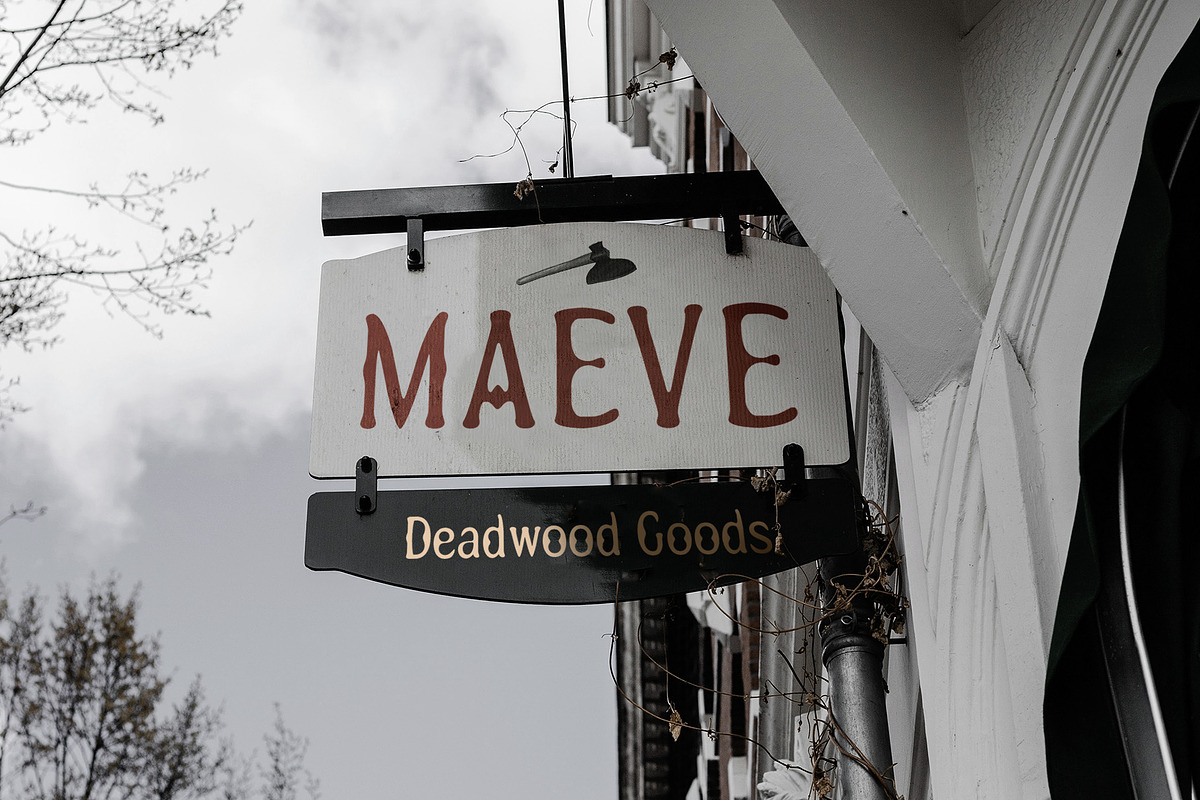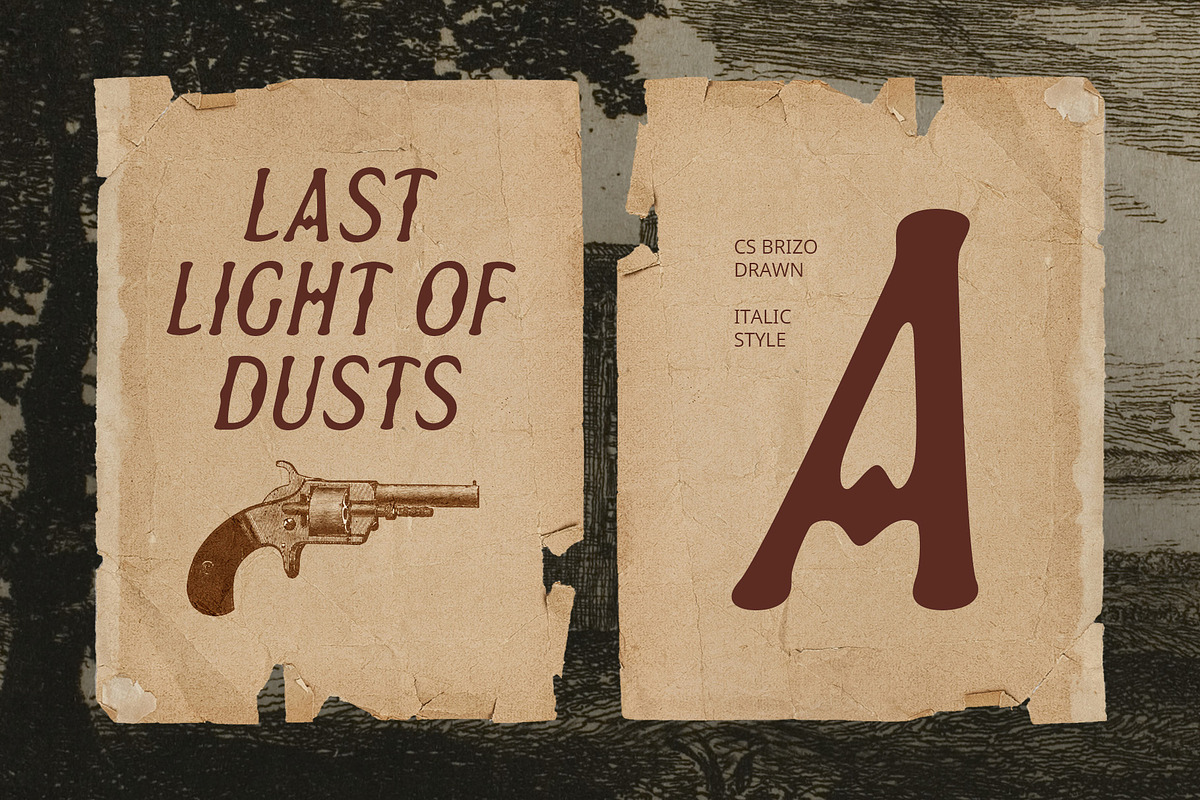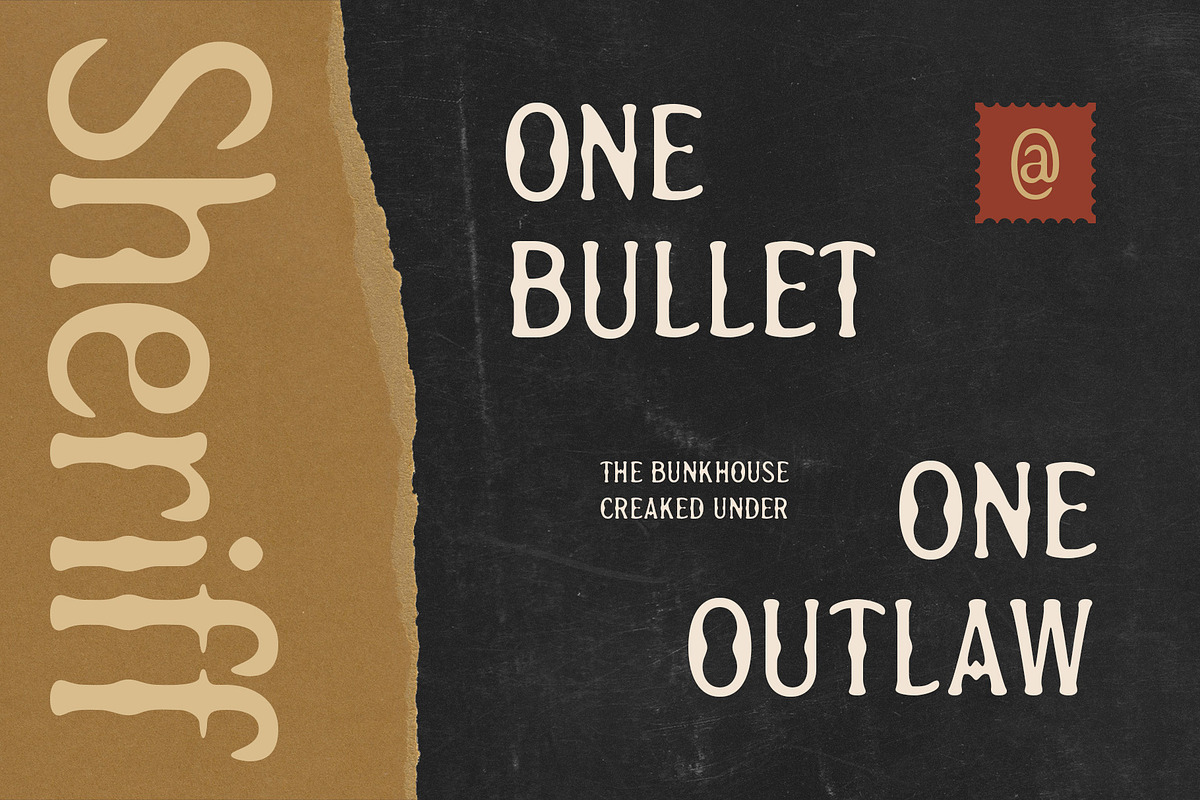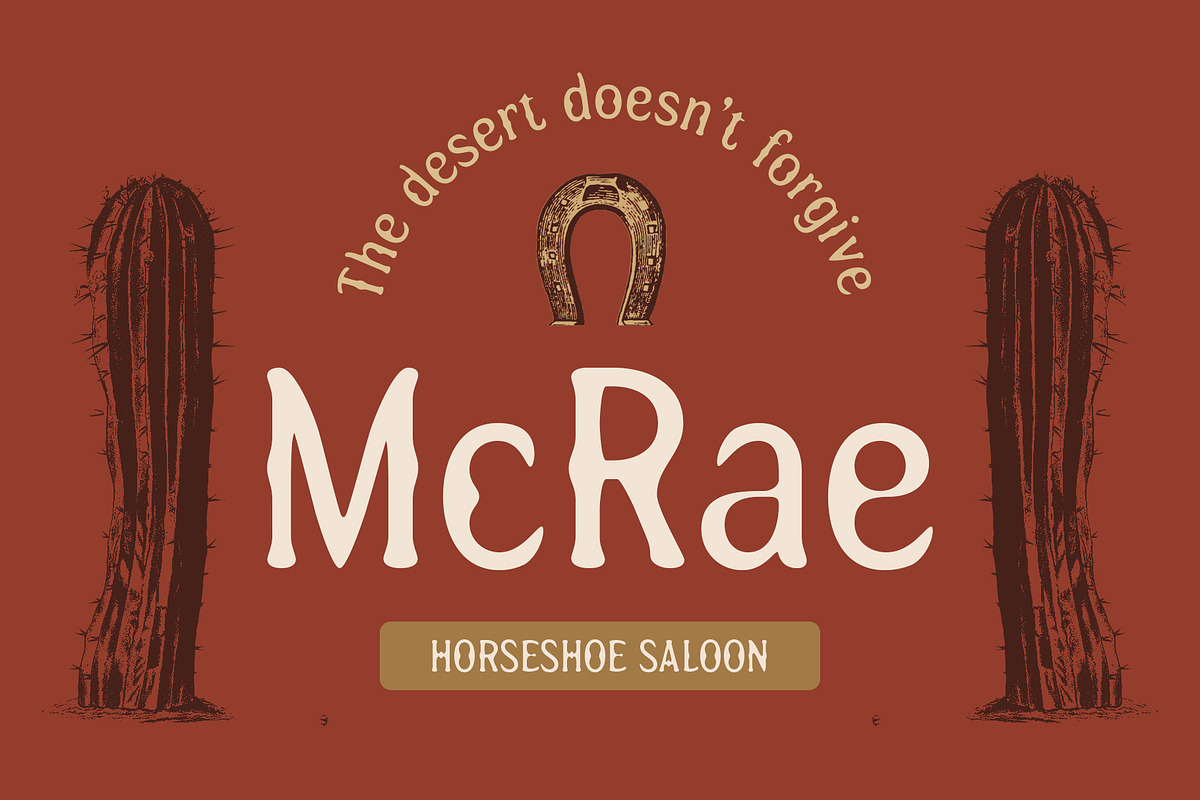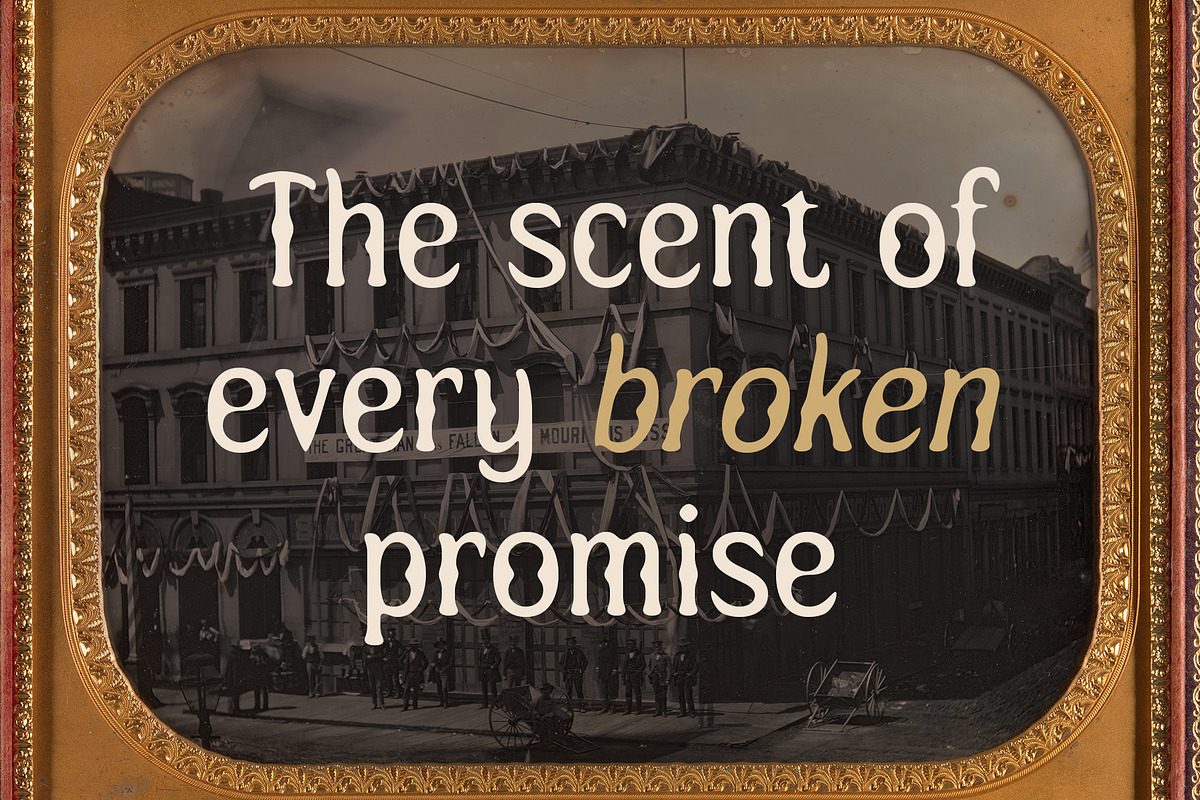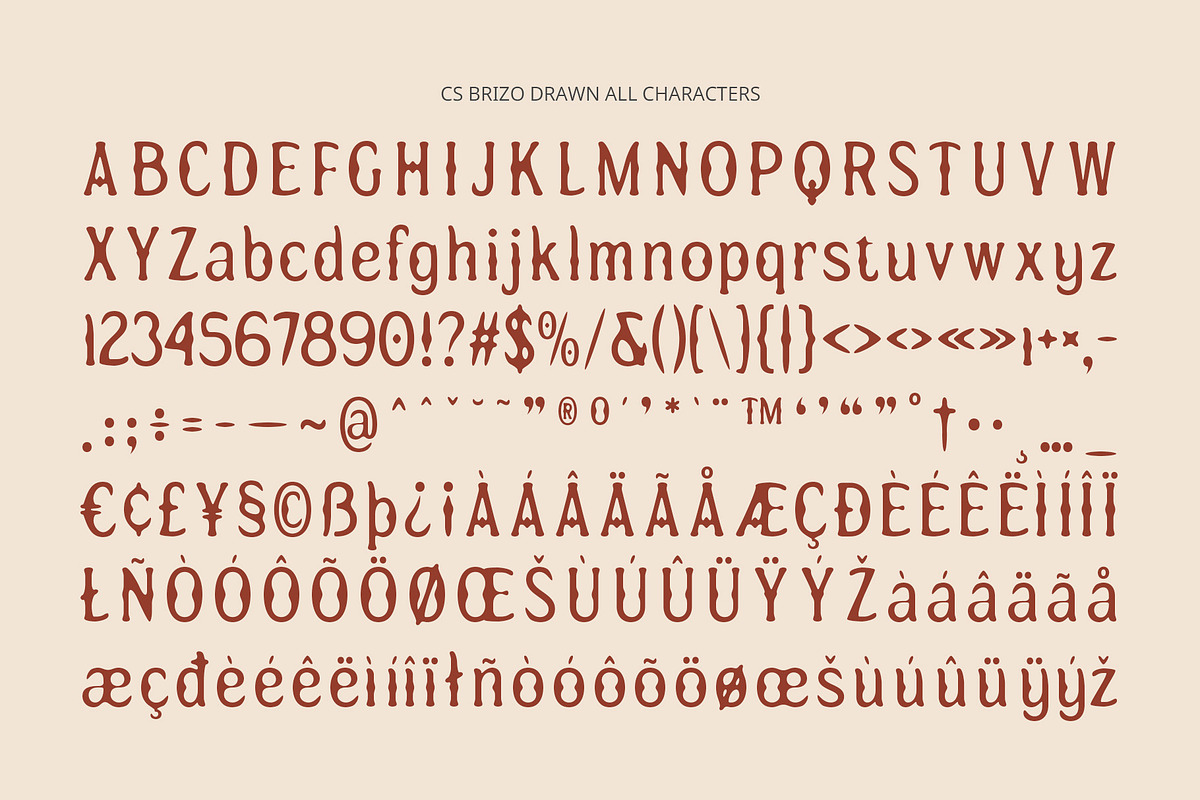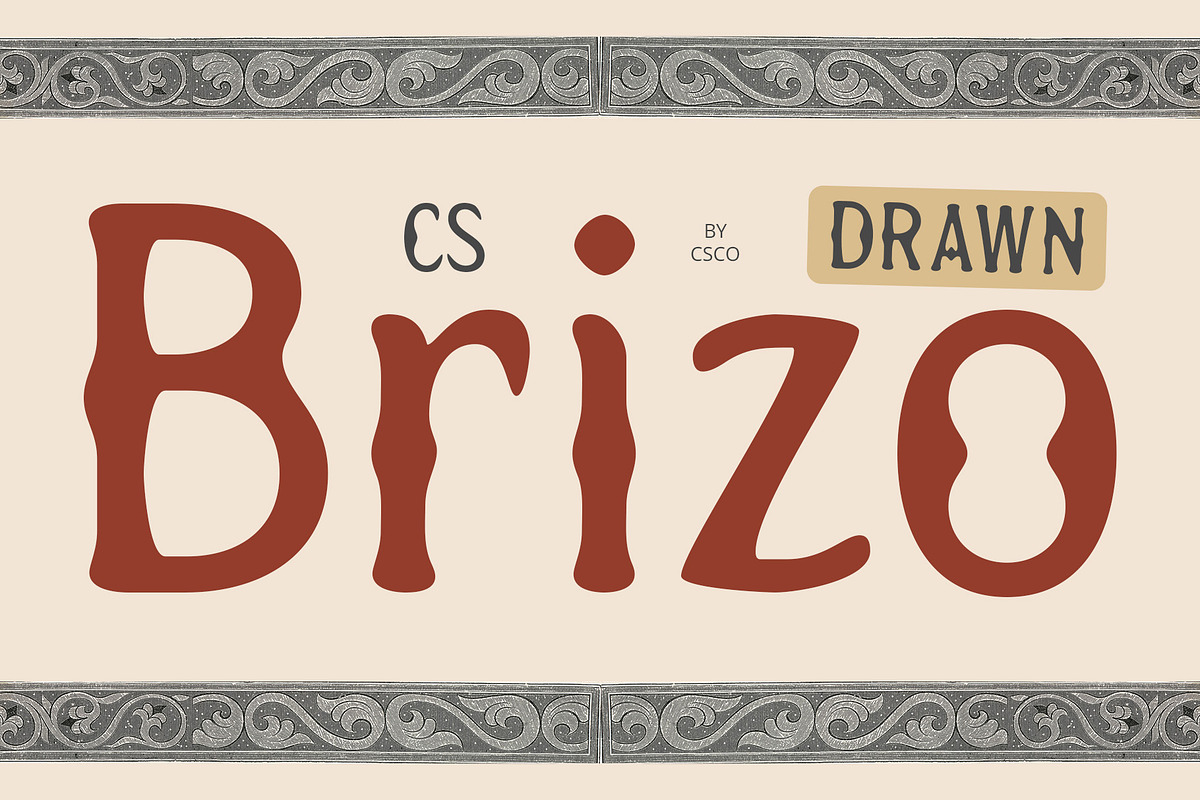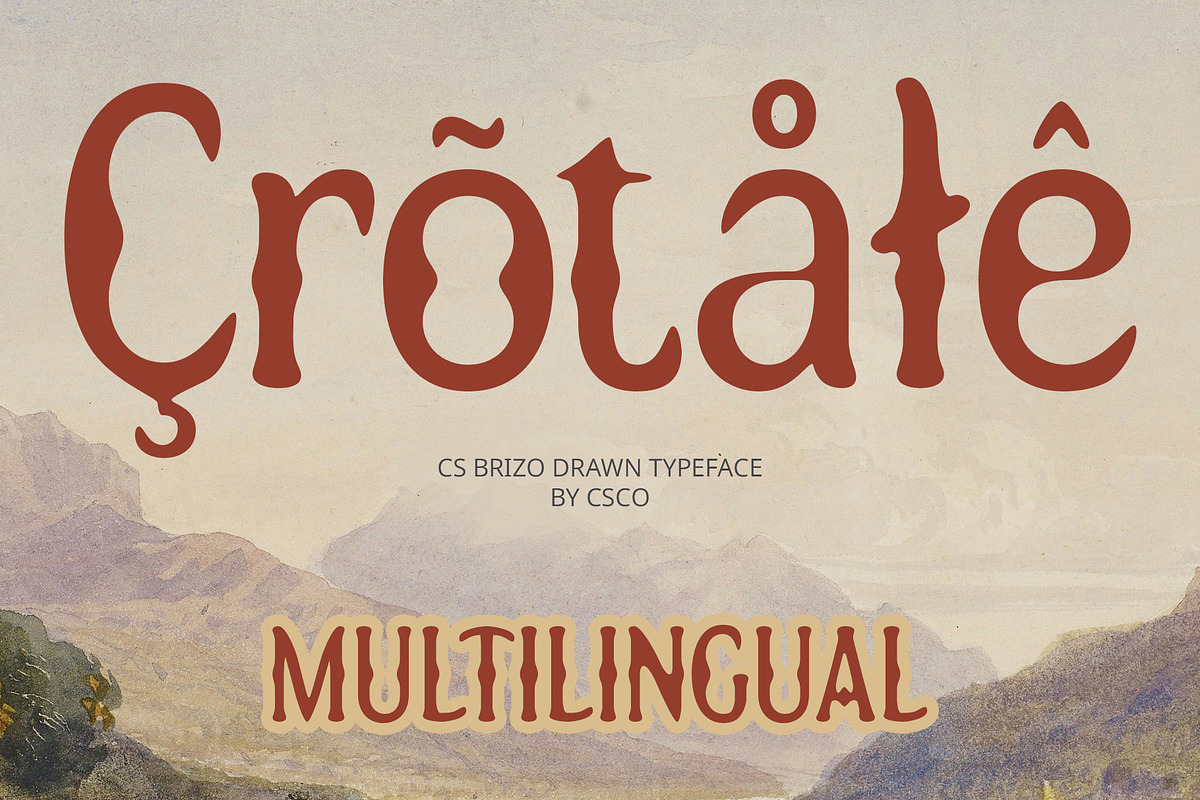
CS Brizo Drawn
CS Brizo Drawn – Edgy Modern Serif with Artistic Flair
Sharp Serif Design with Contemporary Attitude CS Brizo Drawn is a modern serif font defined by its clean structure and sharp, spiky terminals that lend an edgy and confident impression. It balances classic serif elegance with an innovative twist, making it perfect for visual storytelling that wants to stand out with precision and personality.
Handcrafted Drawn Effect for Expressive Texture The drawn effect brings a handcrafted, textured quality to the font, softening its bold angles while adding a sense of artistic imperfection. This contrast between formality and organic texture enhances its character, giving each letter a distinct, expressive presence.
Bold Character with a Unique Visual Identity This font features a cool and bold design—more than just a modern serif, it’s a creative statement. The combination of pointed serif details and hand-drawn style results in a font that is unique, daring, and rich with personality. It offers a fresh approach for designers looking to break away from traditional serif fonts.
Perfect for Creative Editorials, Branding, and Standout Design Whether used for magazine covers, fashion branding, bold headlines, or packaging that needs attitude, this artistic font delivers a modern yet handcrafted look. Ideal for creative professionals who want their typography to reflect strength, uniqueness, and artistic depth.